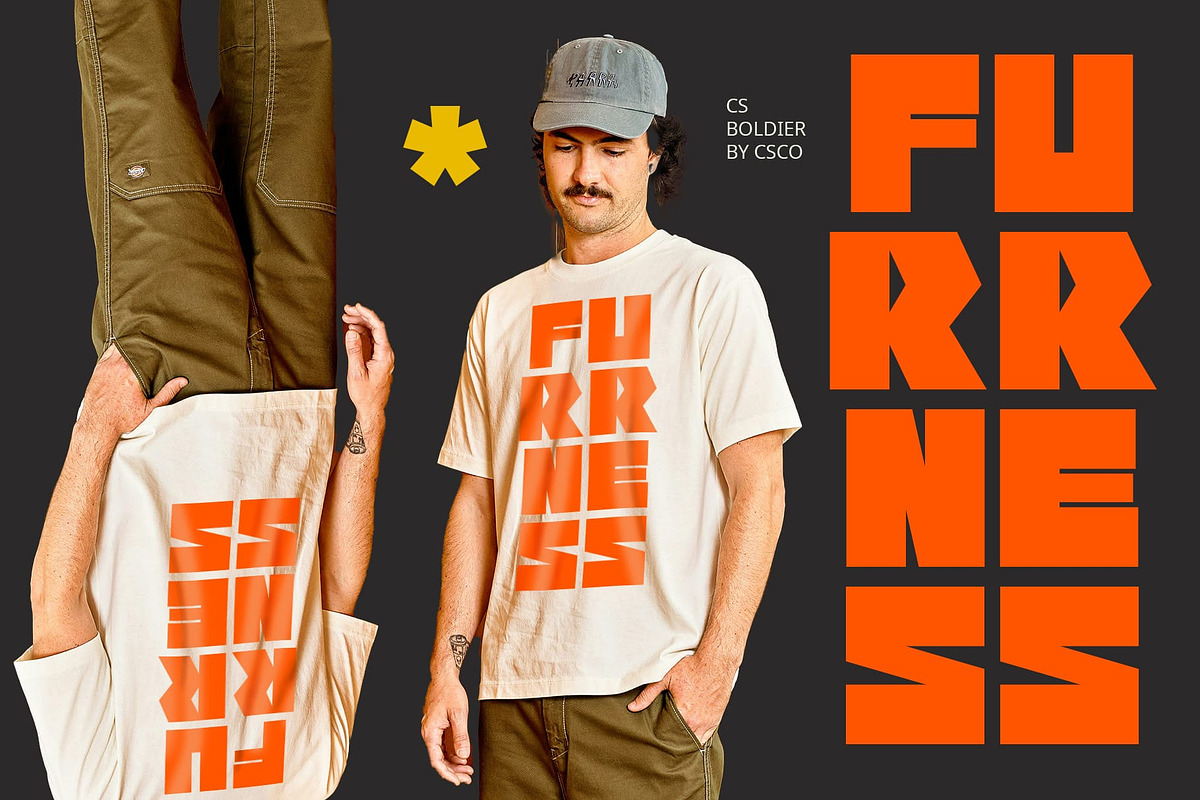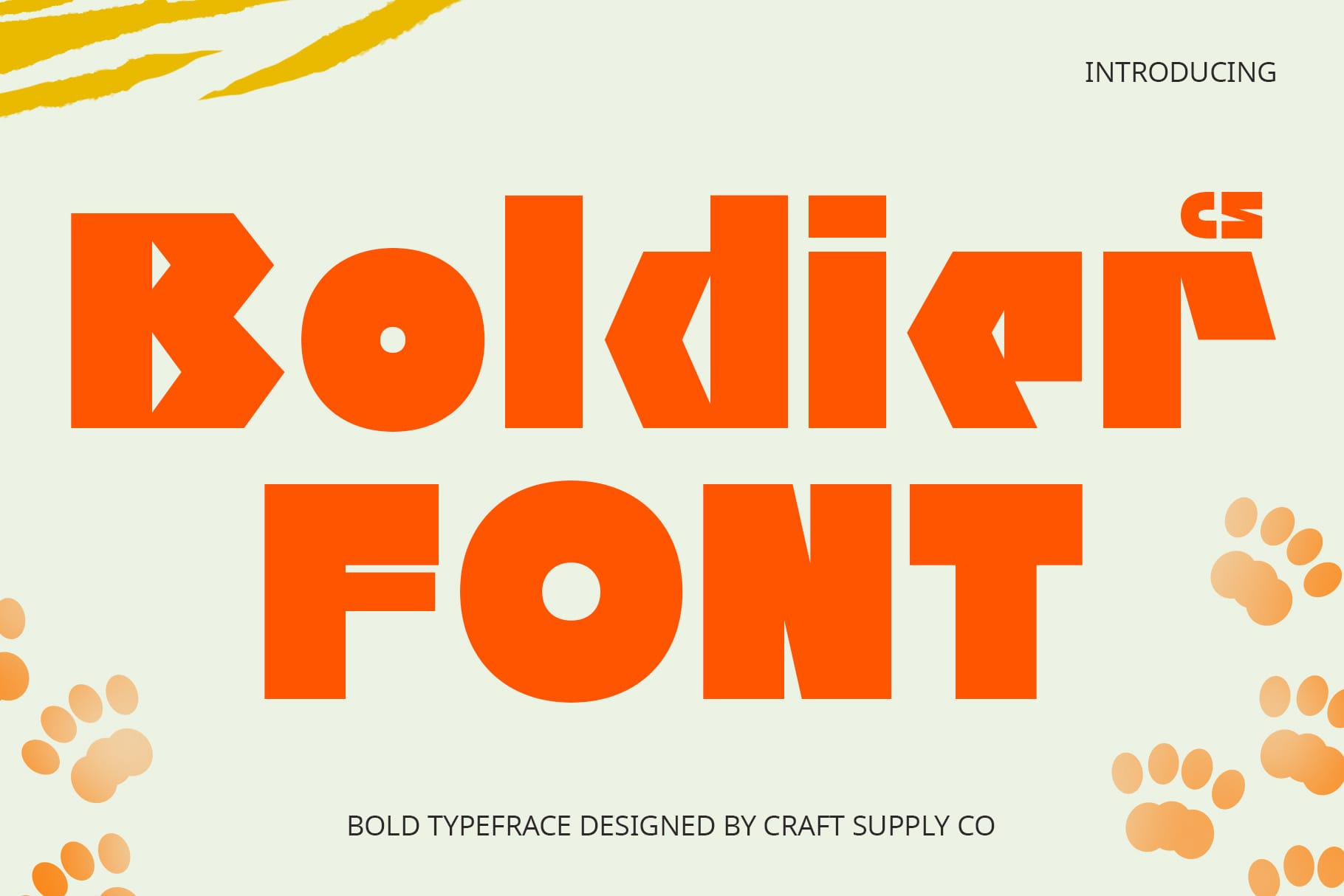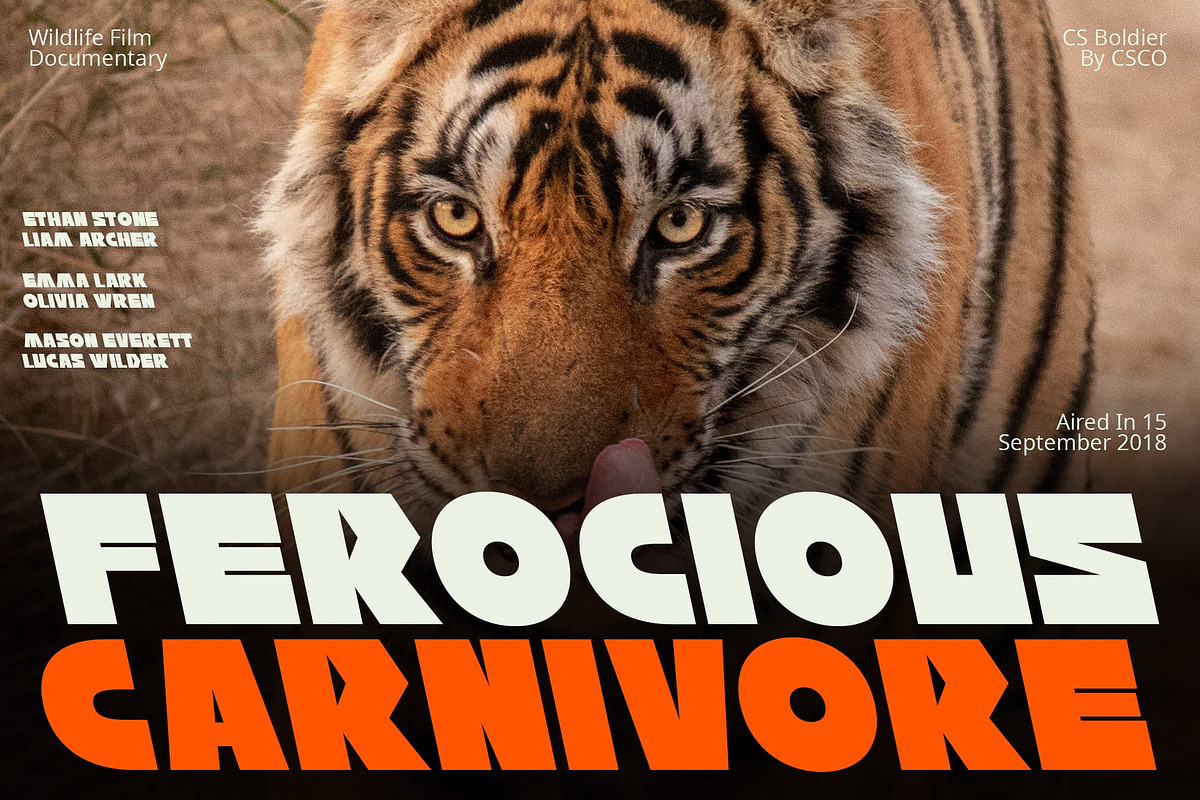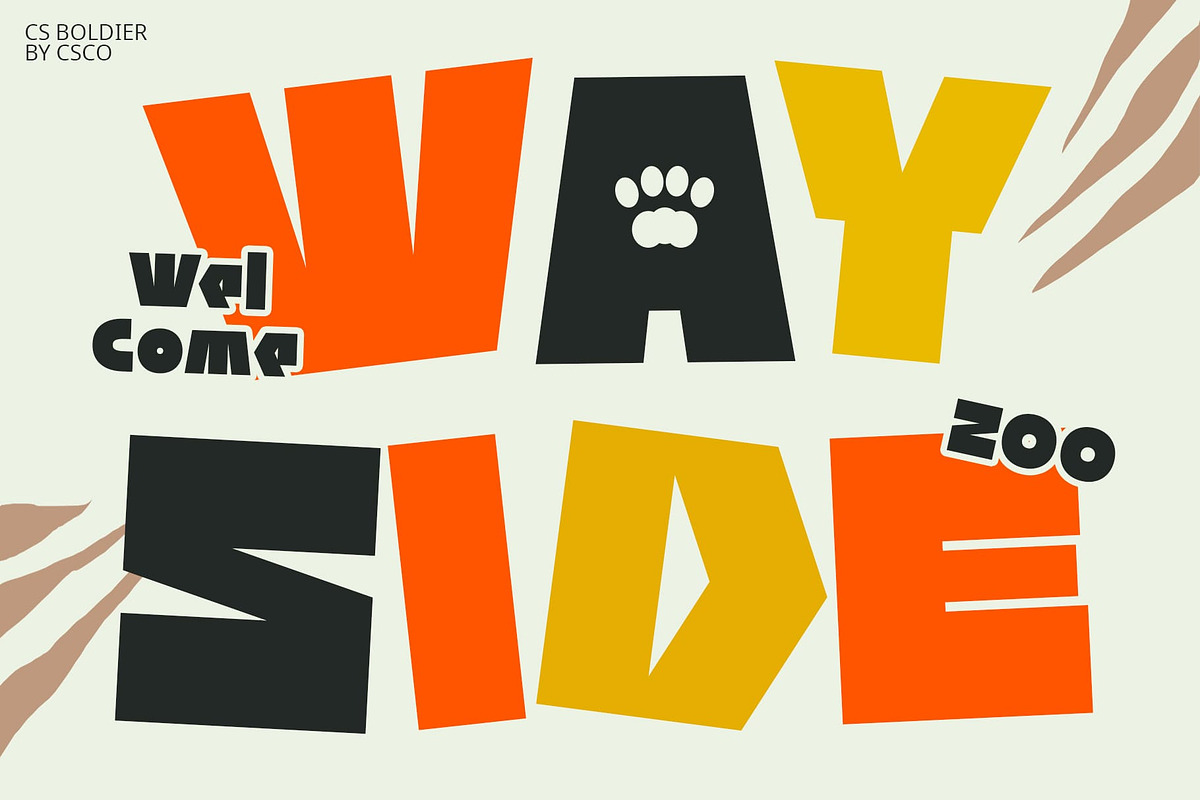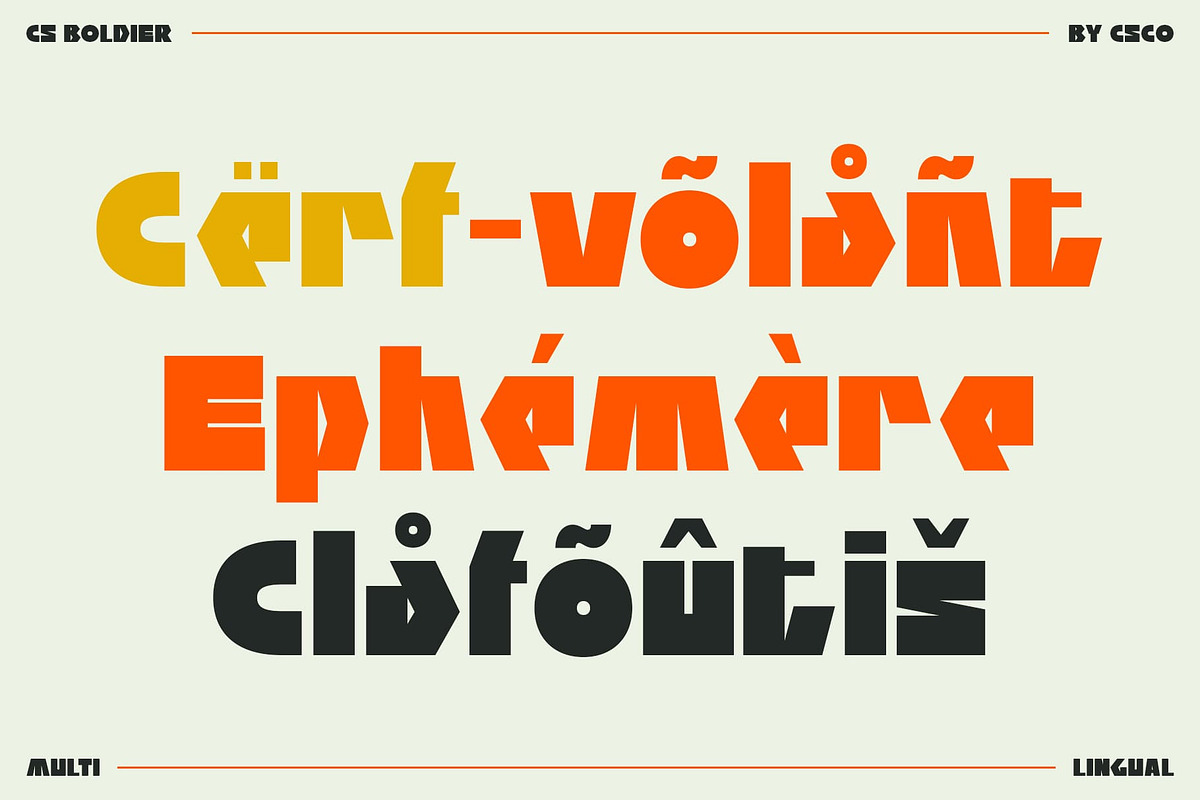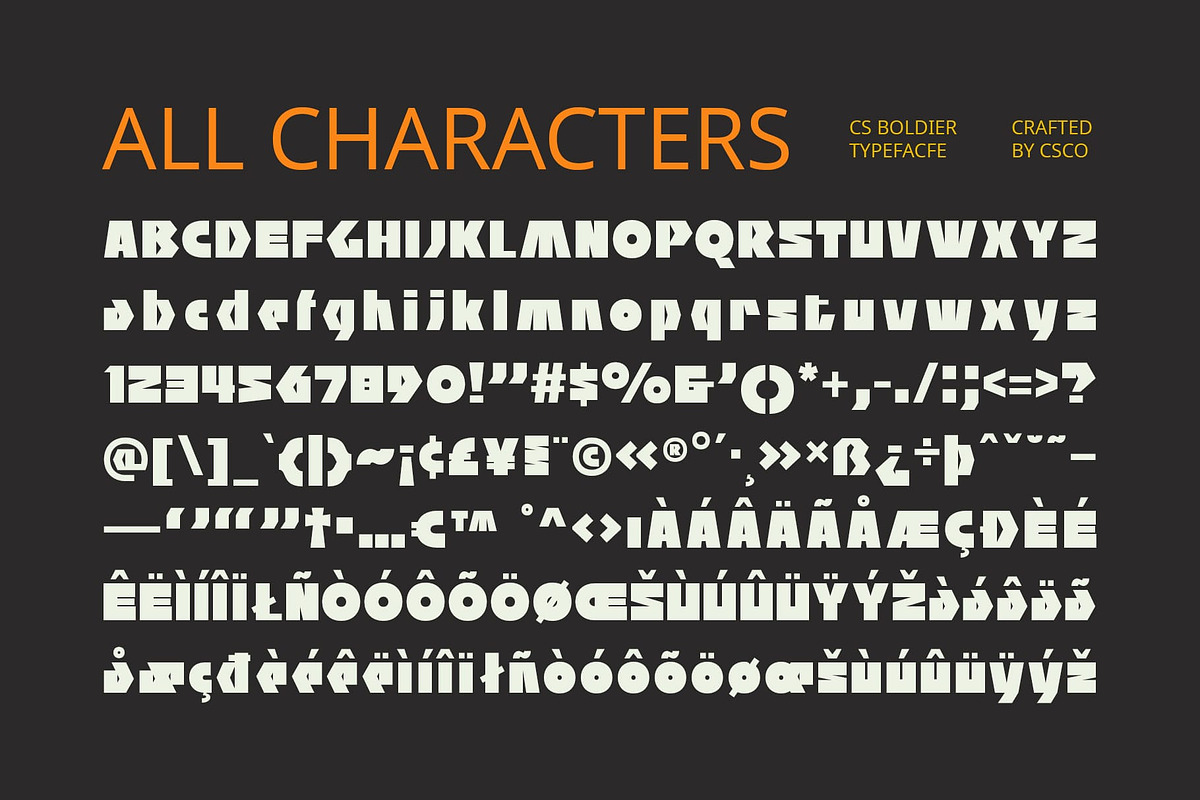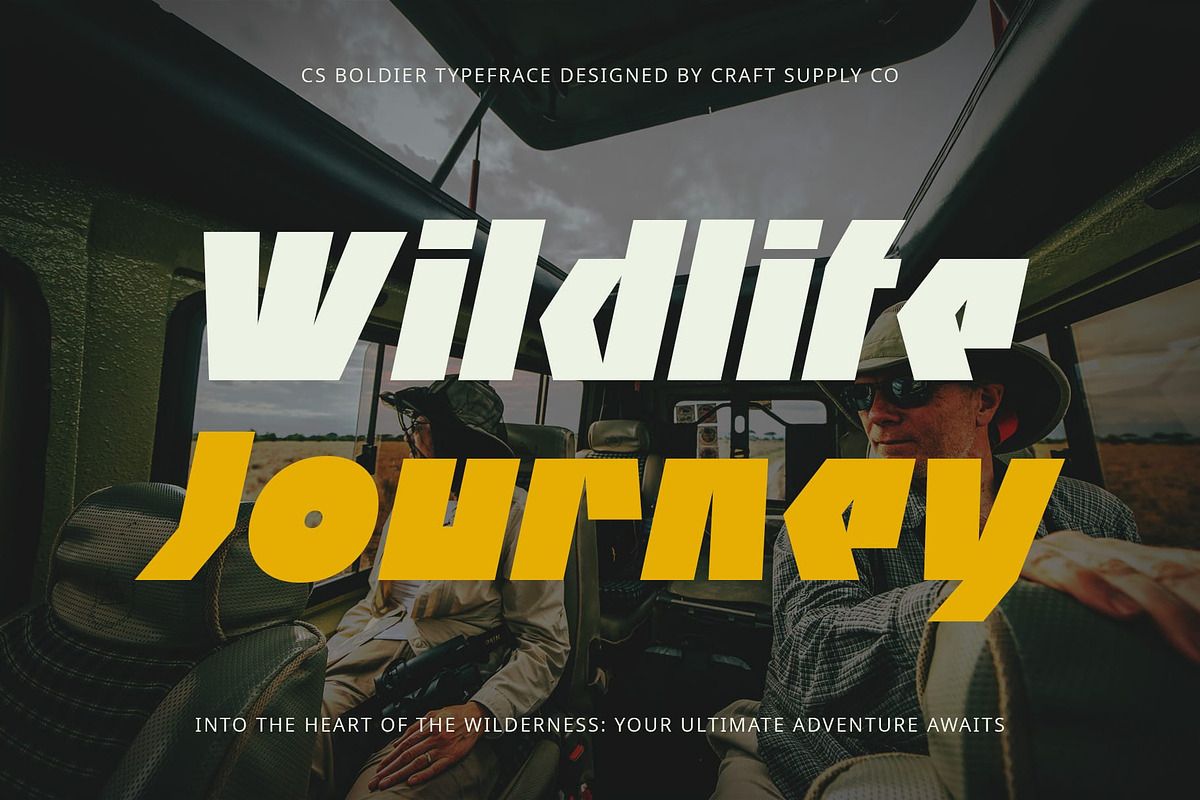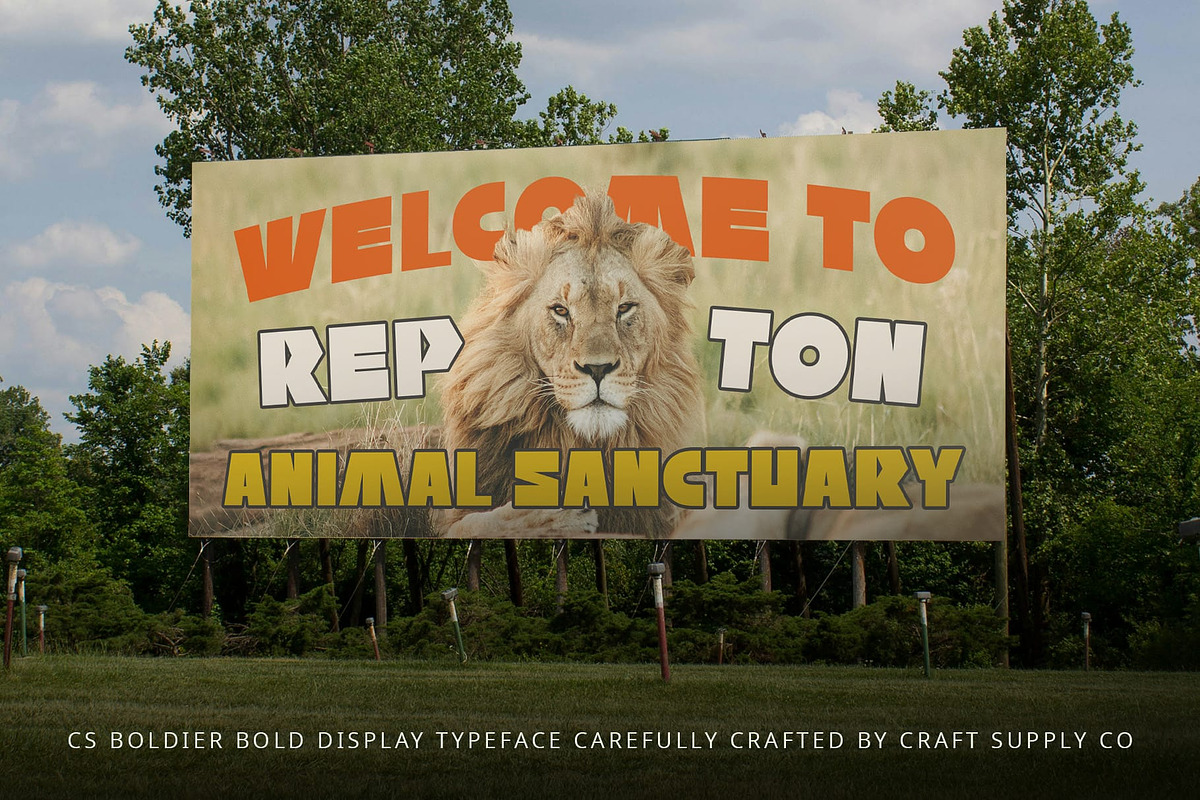
CS Boldier – Bold Font
CS Boldier – Bold Font: Bold Display Font for Emphasizing Creativity and Uniqueness
Unique Combination of Boldness and Excitement
CS Boldier is a bold display font with prominent thick lines, combining boldness and excitement. Perfect for projects emphasizing creativity and uniqueness.
Strong and Standout Impression
With its bold form, CS Boldier Font stands out in any design. The prominent thick lines create a strong and impactful look, making it perfect for headlines, banners, and display purposes where emphasis is key.
Funky Appearance for Creative Projects
Experience the funky appearance of CS Boldier Font, ideal for adding a fresh and daring vibe to your projects. This font’s unique style makes it perfect for posters, music designs, and any creative work that seeks to capture attention and convey a sense of fun.
Versatile and Dynamic Usage
Despite its bold form, this CS font offers versatility for various design applications. Its clean lines and strong presence make it suitable for a wide range of projects, from advertising to branding. Whether you’re creating a vibrant event poster or a dynamic website layout, CS Boldier Font provides the perfect balance of boldness and creativity.
Conclusion
In conclusion, this CS font is a bold display font that combines prominent thick lines with a funky appearance, ideal for projects seeking a strong and standout impression. Perfect for emphasizing creativity and uniqueness, this font enhances any design with its daring and vibrant presence.